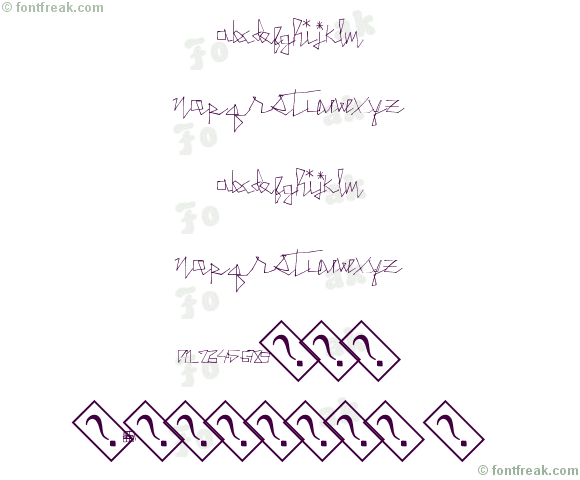
SingleLine
SingleLine by XEROGRAPHER FONTS is a unique display font that stands out for its minimalist aesthetic and distinctive single-stroke design. Released in 2012, this freeware typeface captures attention with its clean lines and geometric simplicity, making it an excellent choice for a variety of creative projects. The font features a consistent stroke weight that lends a modern feel, while the absence of decorative elements ensures clarity and legibility across different mediums.
The visual characteristics of SingleLine are defined by its linear form, which is both striking and versatile. The spacing between characters is thoughtfully designed to maintain readability, even at smaller sizes. This quality makes it suitable for both digital and print applications. The font's straightforward style can be effectively utilized in a range of contexts, including branding materials, promotional graphics, and artistic projects.
SingleLine excels in specific use cases such as wedding invitations, where its elegance can enhance the overall aesthetic, and movie posters, where its unique design can create a memorable visual impact. It is also ideal for restaurant menus, providing a contemporary touch that appeals to modern diners. Additionally, graphic designers and content creators will find it a valuable asset for social media graphics, adding a touch of sophistication to their visuals.